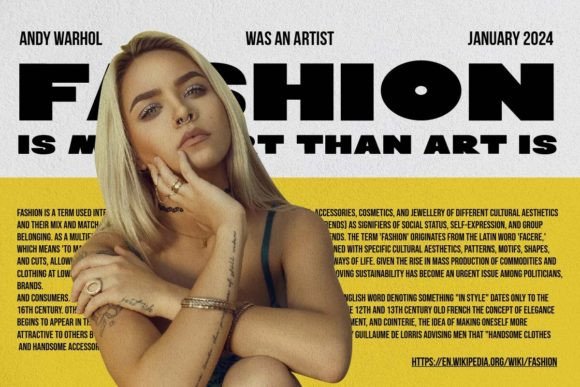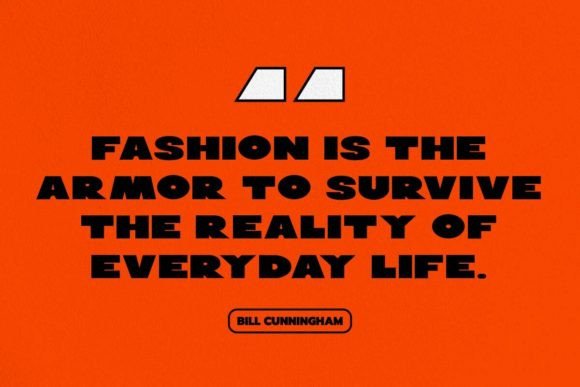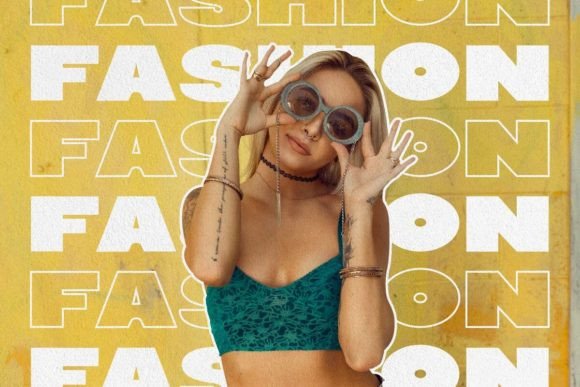
Introduction to Bold Fintia Font
This font is a big, chunky, and retro display font that is suitable for headers and text.
Not only big, but this font has geometric shapes that can make your designs stand out This font is perfect for headlines, logos, websites, brandings, packaging, posters, labels, and other designs that need an eye-catching font.